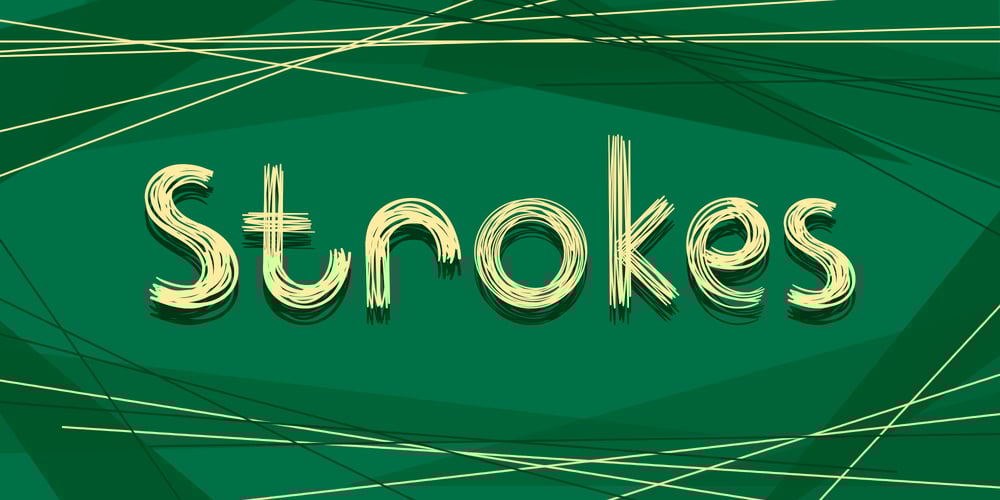
Strokes
Strokes font
Strokes Font Family was designed by Marina Zuikova and published by Favorite Fonts. Strokes contains 4 styles and family package options. The “Strokes” font family presented here has several styles: regular, italic, bold and bold italic. The font supports the alphabet consisting of Latin letters and symbols, Cyrillic, Tatar. The composition of the font “Strokes” includes graphemes from uppercase and lowercase letters, numbers, standard characters. The originality of the font lies in its name. The “Strokes” font is made up of many intersecting lines, forming rounded sans-serif letters, but at the same time smooth and easy to read, which will fit perfectly into your composition. The unusualness and attractiveness of the font makes it noticeable among the texts that surround us everywhere. This property is convenient to use on signs, logos, corporate identity, product packaging. The decorativeness of the font is eye-catching and will add important accents to your work.